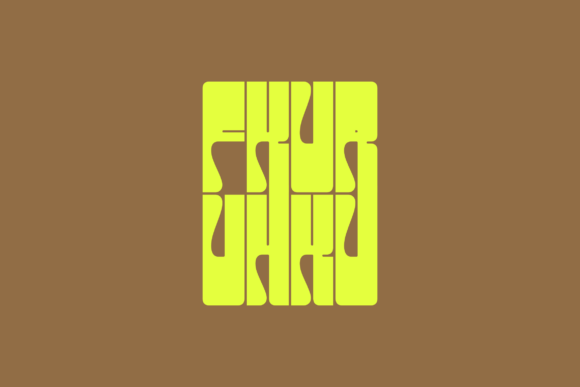
Fkuruhku Font: The Ultimate Gothic Typeface for Bold Designs
In the world of typography, fonts play a crucial role in conveying the tone and personality of a design. When it comes to creating bold and eye-catching designs, a decorative font can make all the difference. Introducing Fkuruhku Typeface, a bold decorative font that gives a gothic style, perfect for headlines, packaging, posters, and any design that requires a bold font.
Key Features of Fkuruhku Font
- Bold and Decorative: Fkuruhku font is designed to make a statement. Its bold and decorative style makes it perfect for headlines, logos, and any design that requires a strong visual impact.
- Gothic Style: The font features a gothic style, which gives it a unique and distinctive look. The gothic style is perfect for designs that require a sense of mystery, drama, and elegance.
- Versatile: Fkuruhku font is versatile and can be used for a wide range of design projects, including magazines, packaging, quotes, movies, games, cover albums, book covers, and flyers.
- Easy to Read: Despite its bold and decorative style, Fkuruhku font is easy to read, making it perfect for designs that require a clear and concise message.
Creative Ways to Use Fkuruhku Font
Fkuruhku font is perfect for a wide range of design projects. Here are some creative ways to use this bold decorative font:
- Headlines and Logos: Use Fkuruhku font to create bold and eye-catching headlines and logos that make a statement.
- Magazines and Packaging: The font is perfect for magazine covers, packaging, and labels that require a bold and decorative style.
- Posters and Flyers: Fkuruhku font is ideal for posters and flyers that require a strong visual impact.
- Movies and Games: The font can be used to create bold and eye-catching titles and credits for movies and games.
- Music and Book Covers: Fkuruhku font is perfect for music and book covers that require a bold and decorative style.
Typography Tips for Using Fkuruhku Font
When using Fkuruhku font, here are some typography tips to keep in mind:
- Use it sparingly: Fkuruhku font is bold and decorative, so use it sparingly to avoid overwhelming the design.
- Pair it with a simple font: Pair Fkuruhku font with a simple font to create contrast and visual interest.
- Experiment with colors: The font looks great in bold colors, so experiment with different colors to find the one that works best for your design.
- Pay attention to spacing: Make sure to pay attention to spacing and kerning to ensure that the font is easy to read.
Benefits of Using Fkuruhku Font
Here are some benefits of using Fkuruhku font:
- Unique and distinctive: Fkuruhku font is unique and distinctive, making it perfect for designs that require a bold and eye-catching style.
- Versatile: The font is versatile and can be used for a wide range of design projects.
- Easy to read: Despite its bold and decorative style, Fkuruhku font is easy to read, making it perfect for designs that require a clear and concise message.
- High-quality: The font is high-quality and can be used for professional design projects.
In conclusion, Fkuruhku font is a bold decorative font that gives a gothic style, perfect for headlines, packaging, posters, and any design that requires a bold font. Its unique and distinctive style makes it perfect for designs that require a strong visual impact. With its versatility, ease of use, and high-quality design, Fkuruhku font is a great addition to any design project.